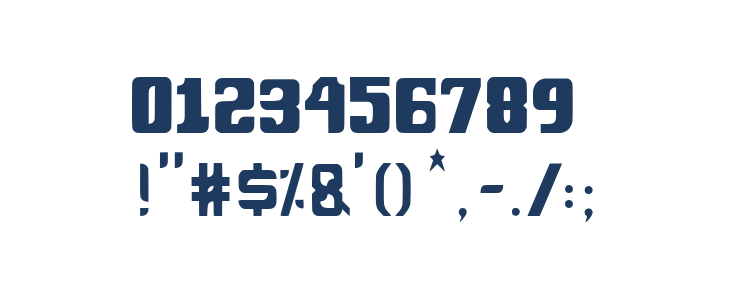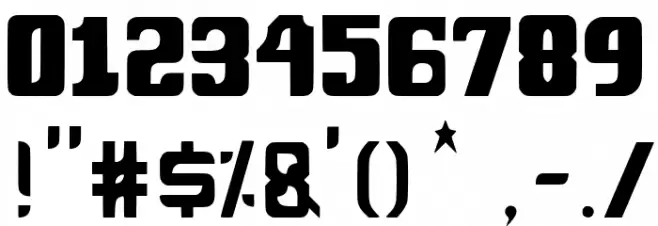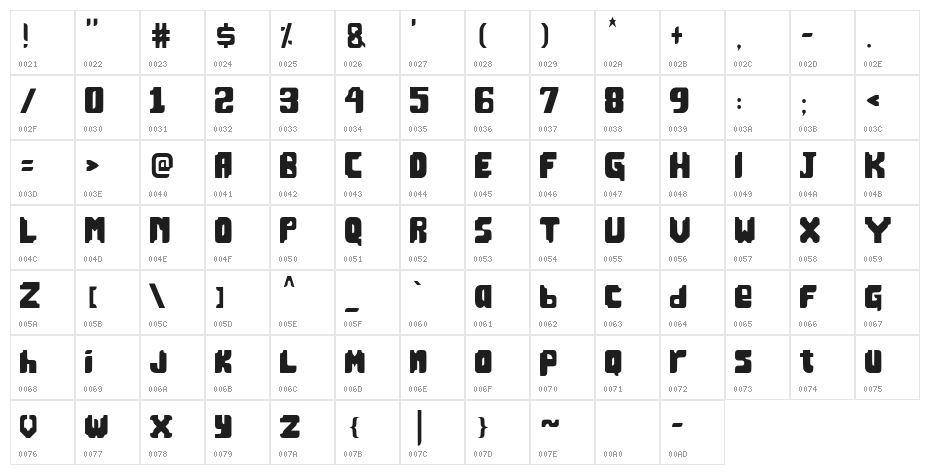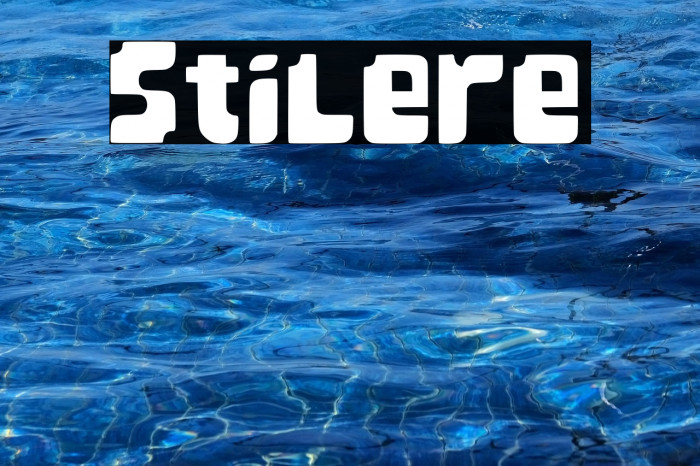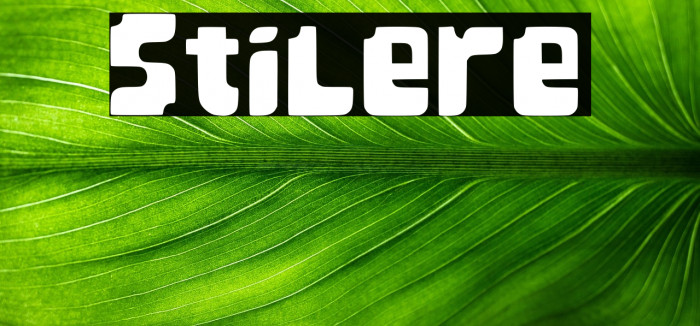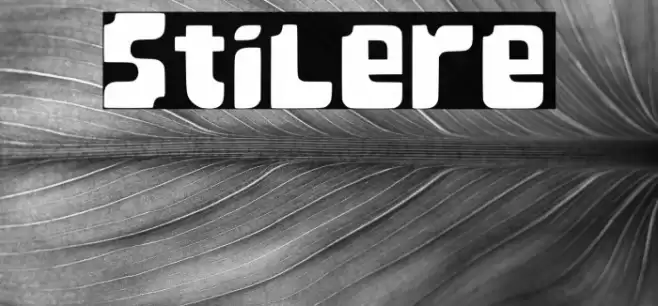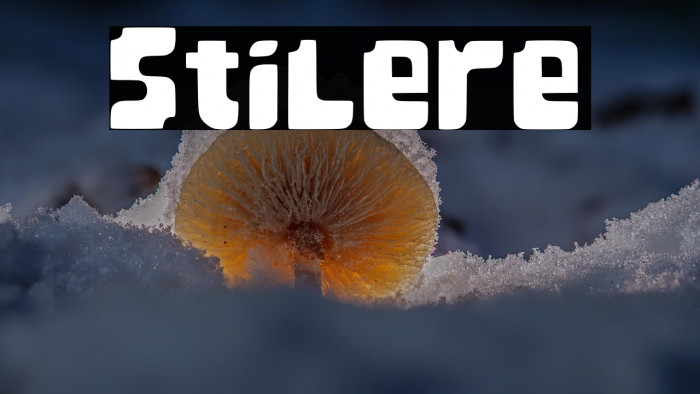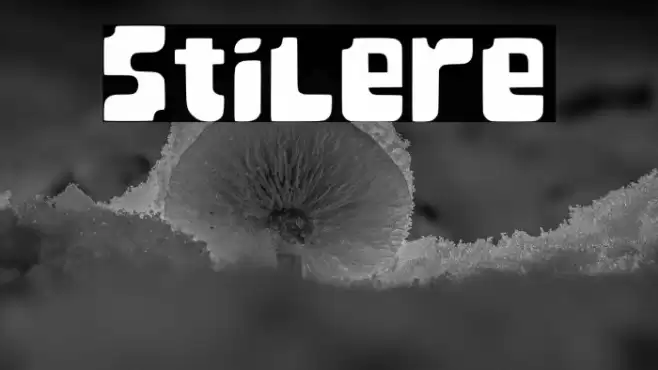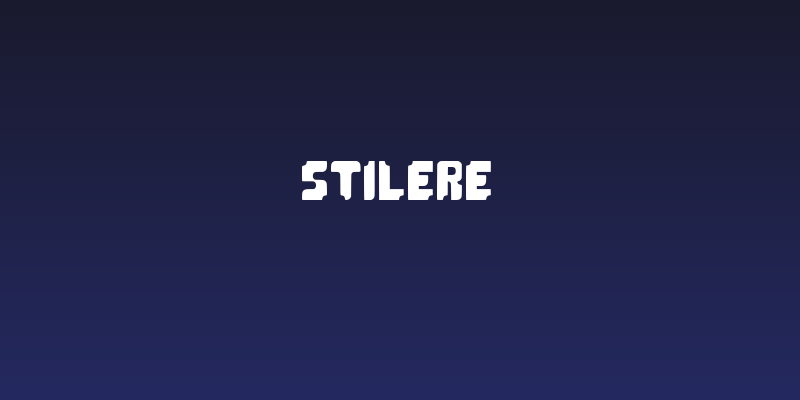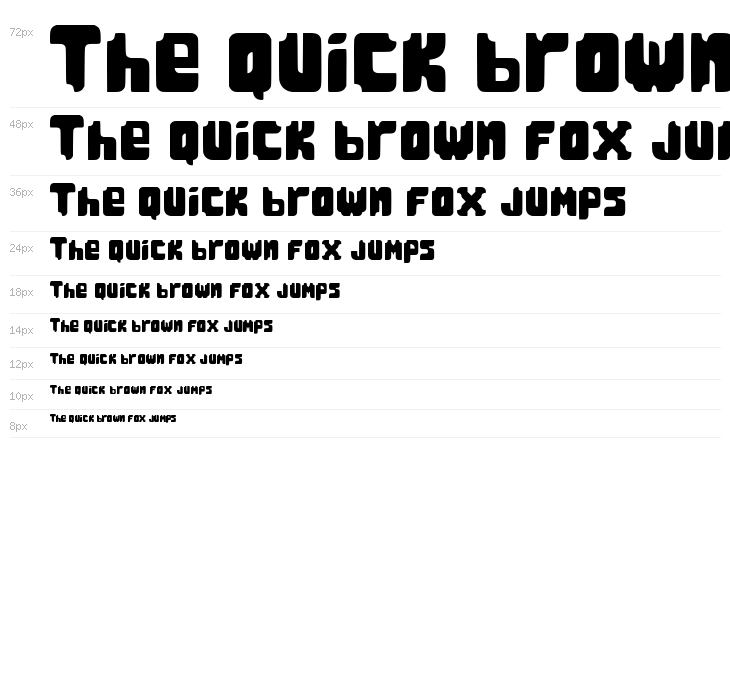
Stilere Font
Stilere Description
This font features a bold and striking design with a strong geometric influence. The characters are blocky and robust, creating a sense of solidity and strength. The uppercase and lowercase letters share a consistent width, contributing to a uniform appearance. The numbers and special characters maintain the same bold style, ensuring cohesion across all elements. The font's thick strokes and minimal contrast make it highly legible, even at smaller sizes. Its unique style is both modern and slightly retro, making it versatile for various design applications.
| Proposed Projects | Ideal for posters, logos, branding, and headlines where a strong visual impact is desired. |